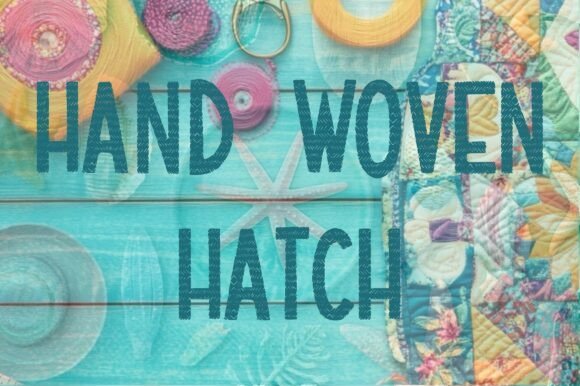
The Art of Handcrafting with Fonts
Have you ever been rummaging through a thrift store or antique shop, and stumbled upon an old, intricately woven blanket that sparks your creativity? The tactile texture, the unique patterns, and the story behind it all can be a true source of inspiration. This feeling is exactly what the Hand Woven Hatch Font embodies – a blend of rustic charm and modern sophistication.
This hand-drawn font is a love letter to the world of woven textiles, where every stitch and thread tells a story. With its bold, textured letters and detailed hatch-style texture, the Hand Woven Hatch Font adds a touch of warmth and originality to any design. Whether you’re a seasoned designer or a DIY enthusiast, this versatile font is perfect for crafting, digital designs, packaging, branding, and more.
With its unique blend of handmade charm and modern appeal, the Hand Woven Hatch Font is a valuable addition to any designer’s toolkit. Its intricate details and rustic texture make it ideal for projects that need a touch of personality and originality.
Key Features of Hand Woven Hatch Font
- Unique Characteristics: Hand Woven Hatch Font features a unique, hand-crafted aesthetic with intricate hatch patterns and subtle texture, adding an organic feel to any design.
Designer Review: Hand Woven Hatch Font
Overall, I’d say the Hand Woven Hatch Font is a unique and visually appealing typeface. ✨ The hand-woven texture and subtle imperfections give it a natural, earthy feel that’s perfect for outdoor or rustic-themed projects. ✨ The font also has a good range of weights and styles, making it suitable for various applications.
One thing that works particularly well is the font’s ability to convey a sense of warmth and personality. ✨ It’s a great choice for branding or marketing materials where you want to create a connection with your audience.
- ⚠️ The font may not be the best choice for projects requiring a high level of precision or technical information, as the texture can make it difficult to read.
- ⚠️ Some users may find the font’s imperfections distracting or inconsistent, especially in larger font sizes.
- ⚠️ The font’s range of weights and styles may not be as extensive as some other typefaces, which could limit its versatility.
In terms of overall impression, I’d give the Hand Woven Hatch Font 4 out of 5 stars. While it’s a great choice for certain projects, its limitations may make it less suitable for others. With a bit more development and refinement, I think this font could be truly exceptional.
Tips for Getting the Most Out of Hand Woven Hatch Font
Use the Hand Woven Hatch Font for rustic, vintage, or handcrafted designs. Pair it with other fonts that have a similar aesthetic for maximum impact. Experiment with different font sizes, colors, and arrangements to achieve the desired look.
Use the Hand Woven Hatch Font for:
- Food labels and packaging
- Home decor and furniture designs
- Rustic or vintage-themed weddings and events
- Handmade crafts and artisanal products